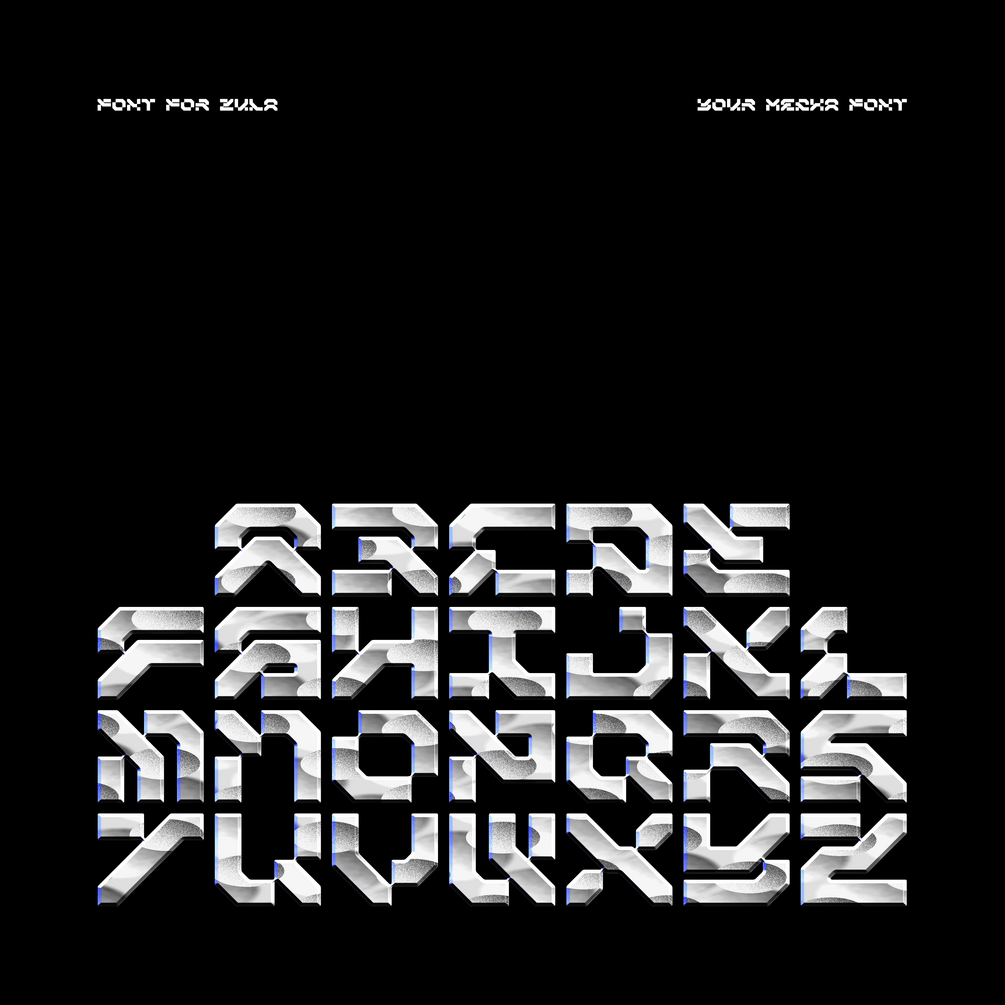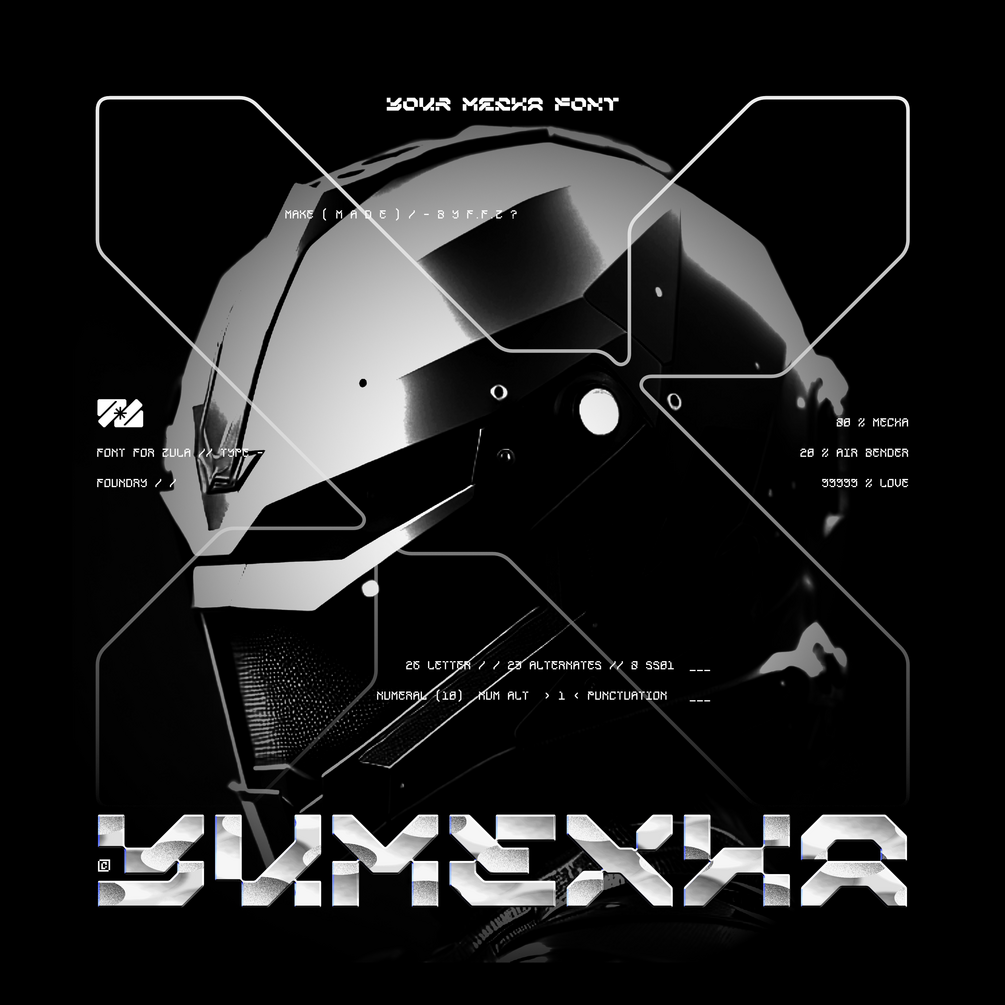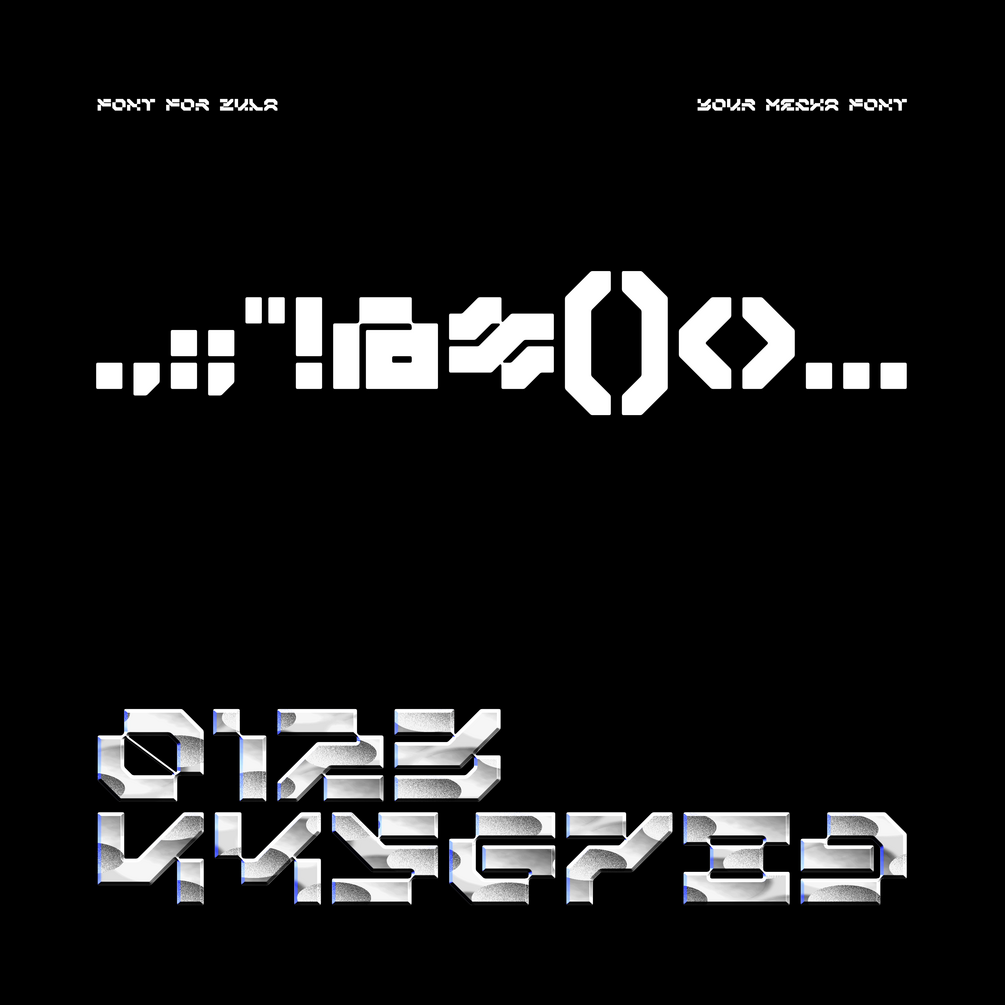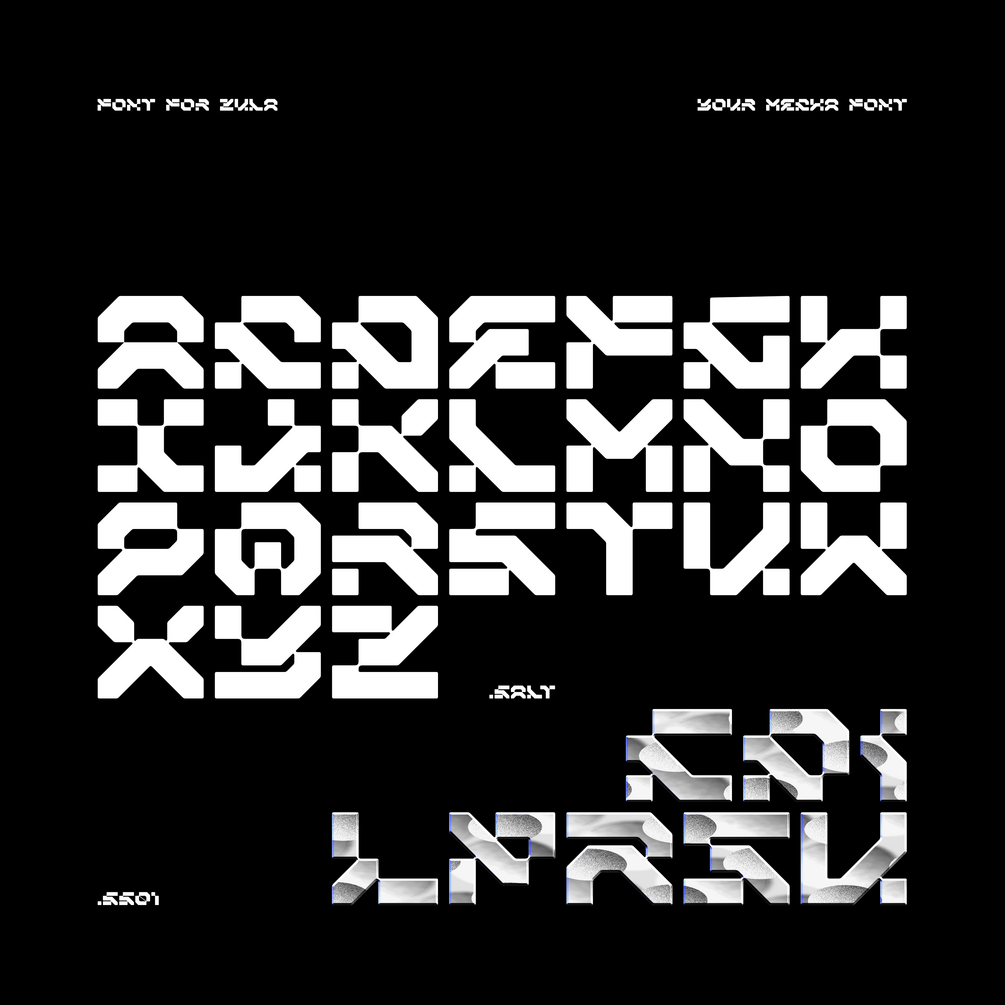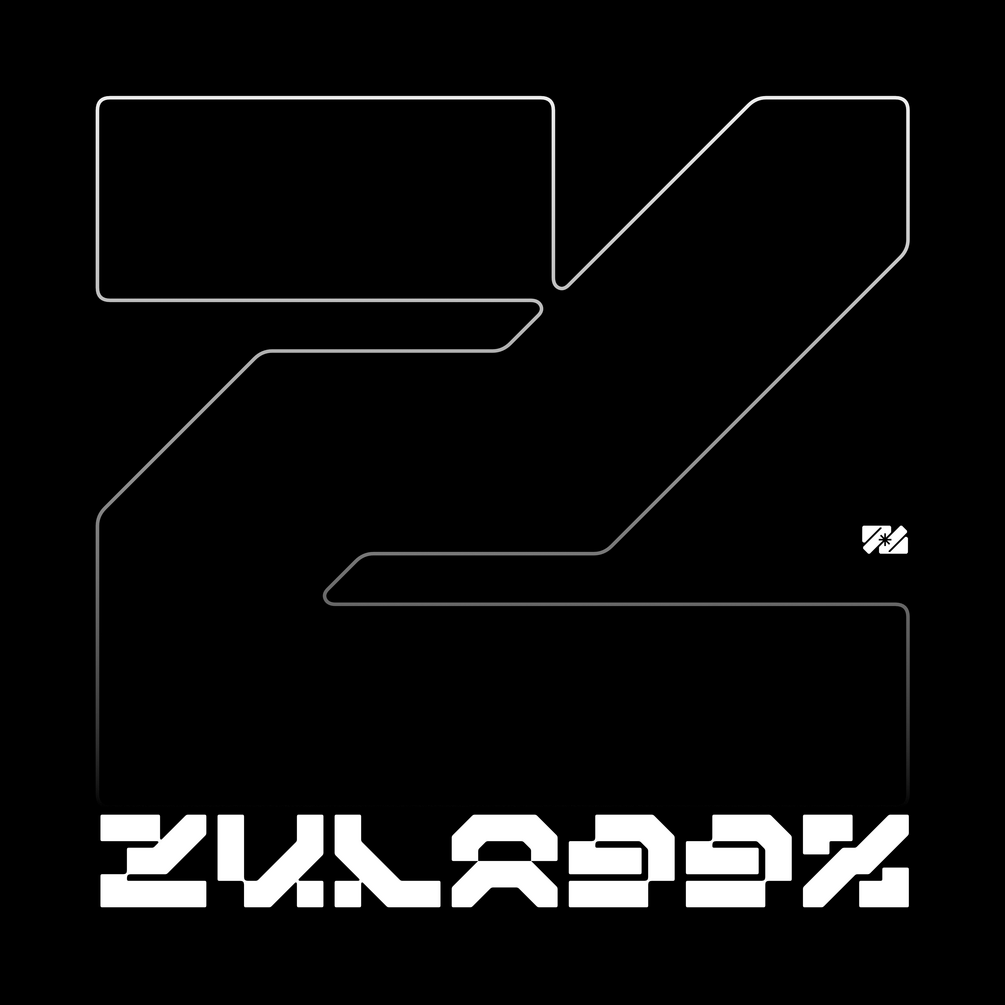
YUMEXHA
YUMEXHA - Level up your design using this unique typeface with a futuristic mecha theme.
You also have lots of choices with abundant alternative letters.
YUMEXHA Includes:
- 26 Letters
- 23 Alternates
- 8 Stylistic sets 01
- 10 Numerals
- 1 Numeral Alternates
- Punctuation